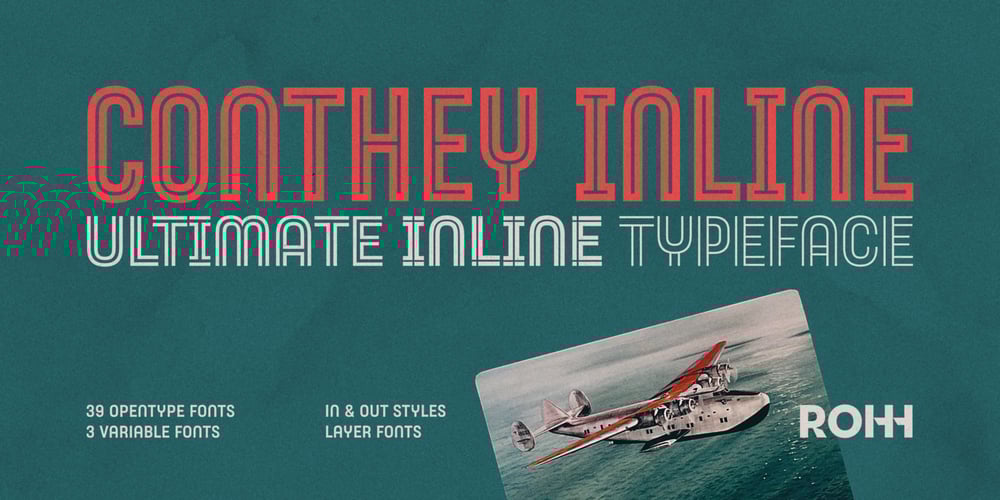
Conthey Inline
Conthey Inline font
Conthey Inline Font Family was designed by Roch Modrzejewski and published by ROHH. Conthey Inline contains 42 styles and family package options. Conthey Inline™ is your new retro-display best friend! The one and only, unique IN-AND-OUT typeface with strong personality and outstanding flexibility. This display sans features amazing variable fonts letting you adjust not only width of the letters, but also let you fluently transition from thin inline styles to thin outline ones. This mechanics opens a world full of layering possibilities as well as a great fine-tuning ability.The family consists of 39 OpenType fonts – 18 pure inline/outline styles in 3 widths (Narrow, Condensed, Normal) and 21 styles carefully prepared and tuned for layering. For even greater flexibility 3 variable fonts are included in the set.In addition to flexible width and inline-outline transitioning, this playful typeface features 4 different inline styles to spice up things even more! All styles were meticulously crafted with the highest attention to detail in the letterforms as well as spacing.Conthey Inline is a sibling of Conthey, a display unicase family as well as Lutschine, a versatile modern narrow display typeface. Conthey Inline composes perfectly with its family members, covering a very broad range of design scenarios. All these typefaces are a part of big type system containing also a workhorse sans serifs such as Rothorn and Montreux Grotesk.You will have a lot of success using Conthey Inline for any kind of playful, vintage/retro, organic, friendly and stylized designs. Especially, industries such as food & beverage, travel, hospitality, fashion, healthcare, sports, lifestyle, music, art, entertainment and products for youth are perfect areas to make Conthey Inline shine with all its charm.